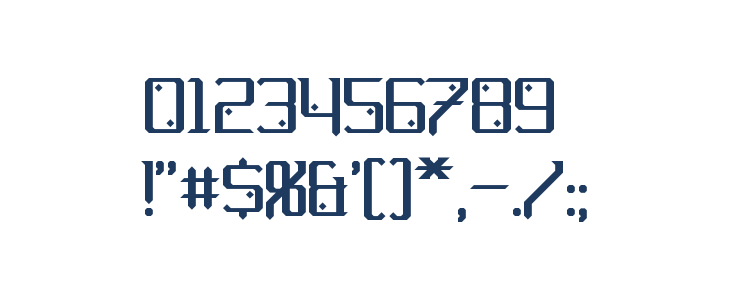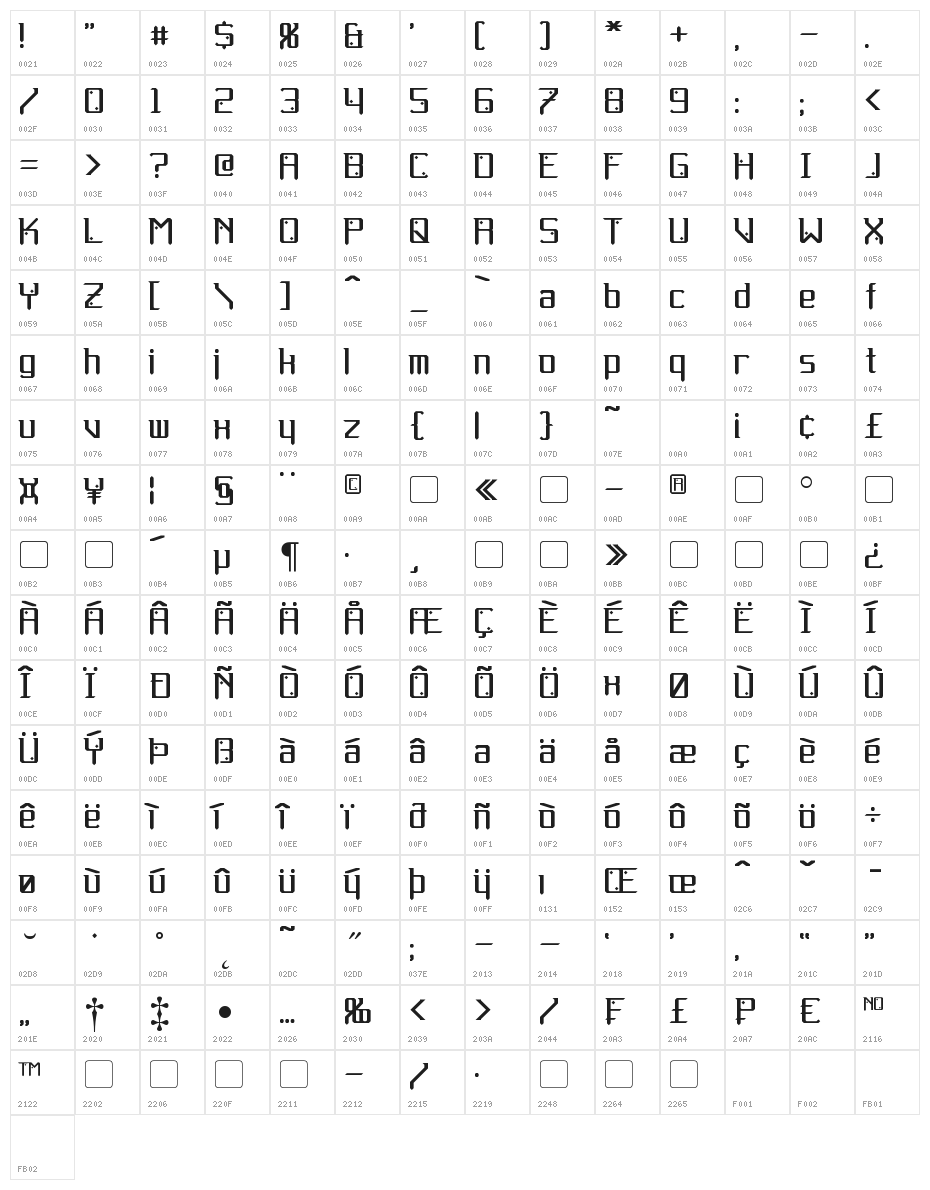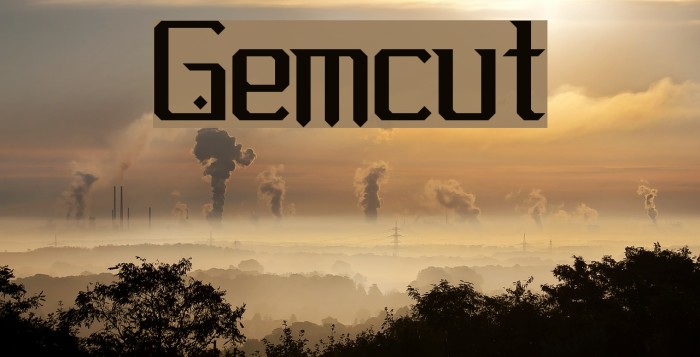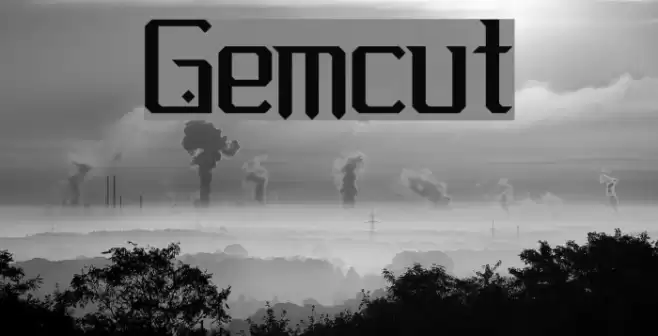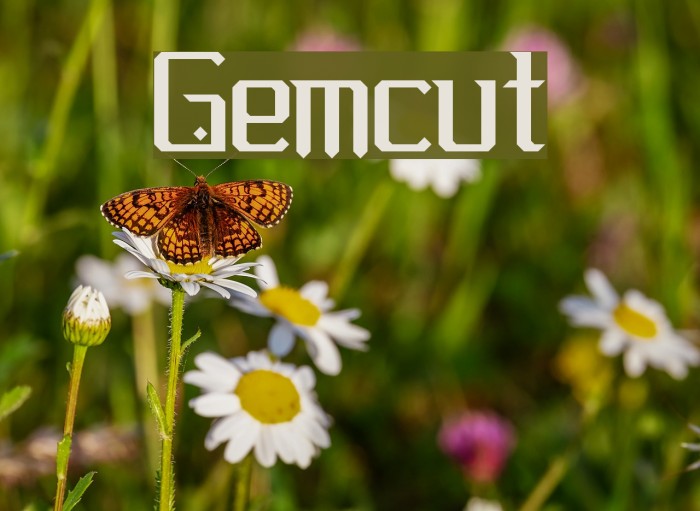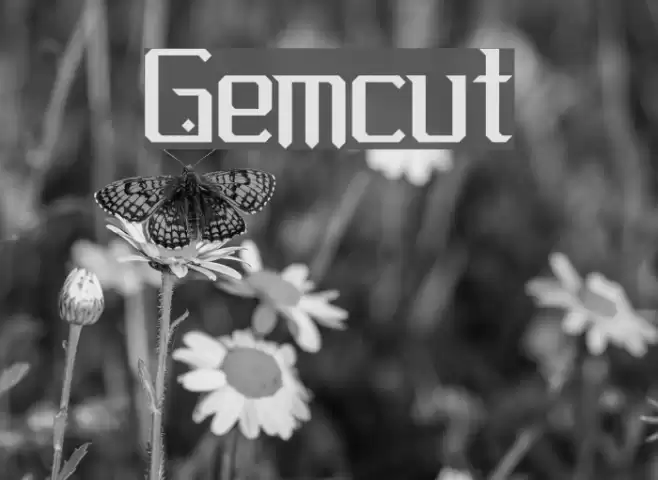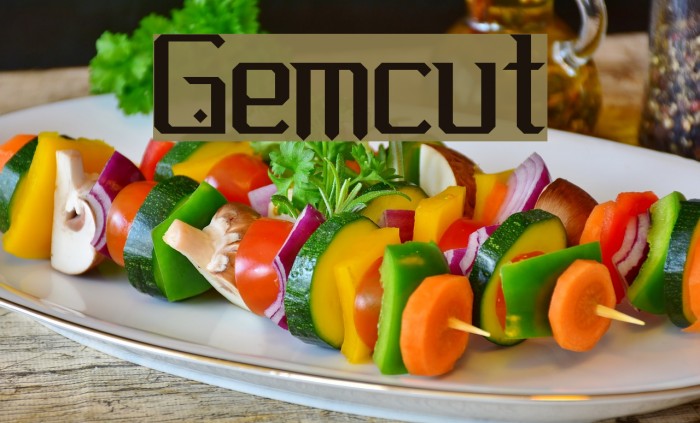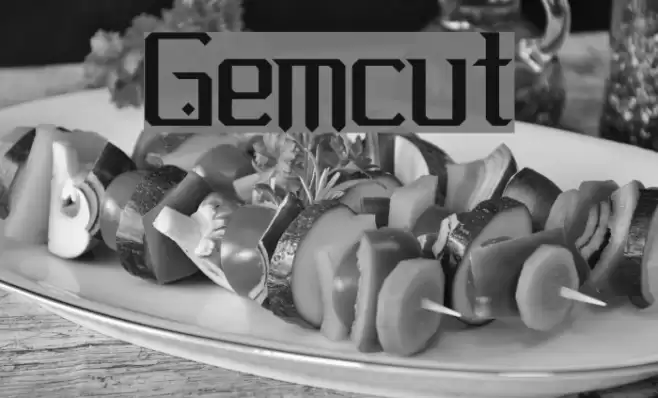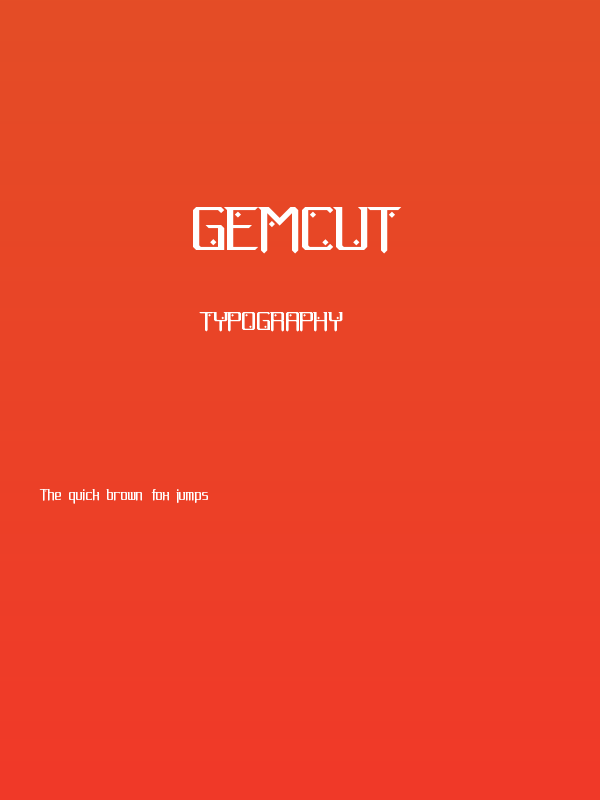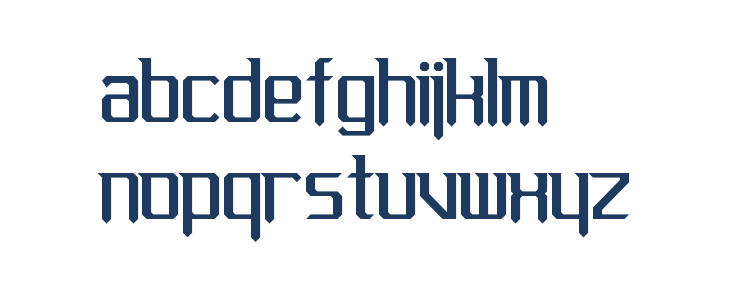
Gemcut Font
Gemcut Description
This font features a unique geometric design with angular, faceted edges reminiscent of cut gemstones. Each character is crafted with precision, incorporating sharp lines and distinct corners that create a modern and sophisticated look. The uppercase and lowercase letters maintain a consistent style, with the uppercase being slightly more pronounced. Numbers and special characters follow the same design principles, ensuring uniformity across all glyphs. The font's distinct style makes it stand out, while still being legible and versatile for various design applications.
| Proposed Projects | Ideal for branding, logos, posters, and modern digital interfaces. |